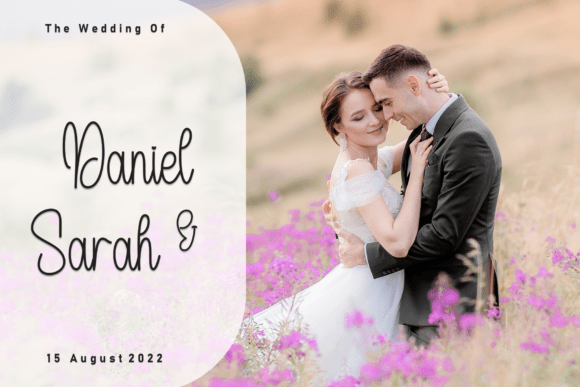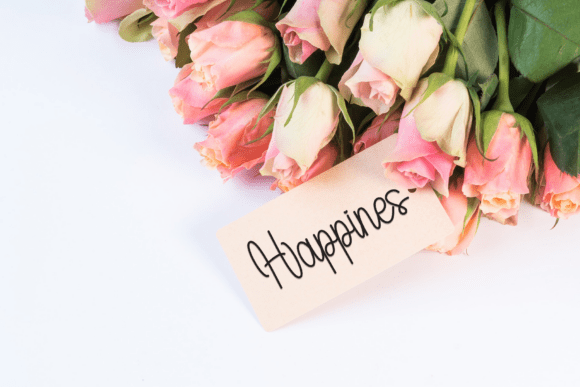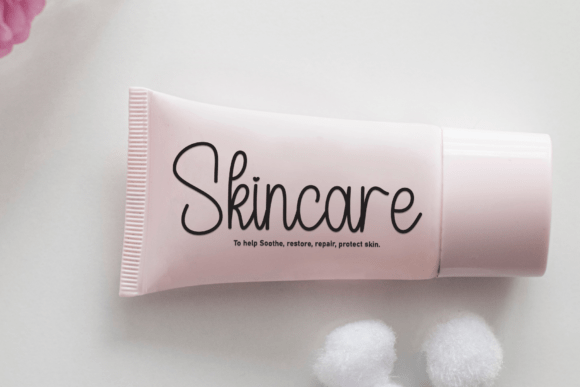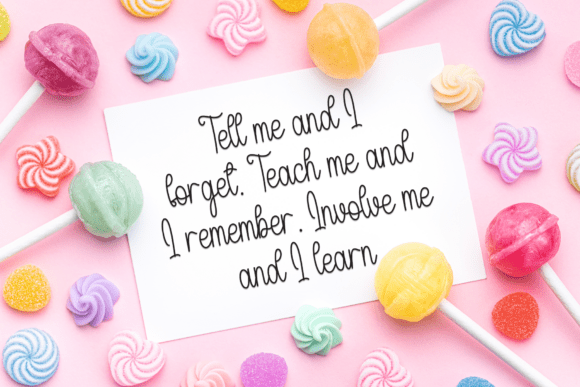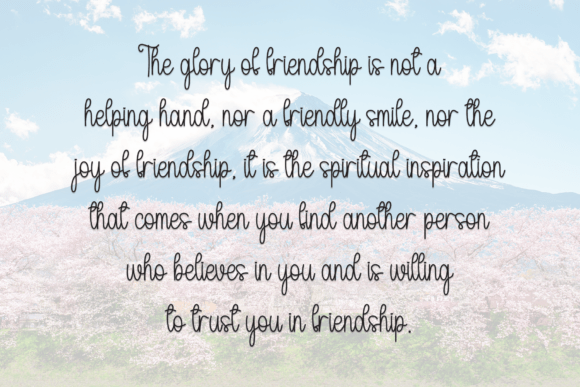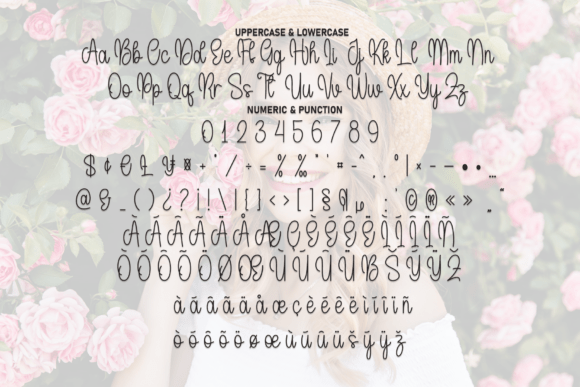
Unlock Your Creative Potential with Beautiful Font
Have you ever been working on a design project, pouring your heart and soul into it, only to feel like something’s missing? That’s where Beautiful Font comes in – a handcrafted display font infused with vibrant energy and gentle warmth that will elevate your designs to new heights. This charming typeface is designed to command attention and add a touch of joy to any project.
Whether you’re creating wedding invitations, greeting cards, or any other design that requires a dash of celebration, Beautiful Font is the perfect tool for the job. Its irresistible allure and cheerful aura will transform ordinary designs into delightful masterpieces that shine with joy and warmth. With Beautiful Font, you’ll have the flexibility to express your creativity in a whole new way, making it an essential addition to any designer’s toolkit.
Key Features of Beautiful Font
- Unique Characteristics: The font features a unique blend of elegance and sophistication, with subtle curves and flourishes that set it apart from other fonts.
- Weight and Style: The font is available in 5 weights (Light, Regular, Medium, Bold, and Black) and 3 styles (Upright, Italic, and Small Caps), providing a wide range of options for designers and typographers.
Beautiful Font Review
Overall, I was quite impressed with Beautiful Font’s aesthetic and versatility. ✨ The font’s elegant and sophisticated design makes it perfect for high-end branding, luxury goods, or any project that demands refinement. It’s also quite legible, making it a great choice for body text.
- ✨ Elegant and sophisticated design
- ✨ Highly legible
- ✨ Suitable for a wide range of applications, from branding to body text
However, I do have a few concerns with Beautiful Font. ⚠️ It’s not ideal for use in digital interfaces or interactive elements, as it can be quite dense and overwhelming in certain sizes and contexts. Additionally, the font’s complexity may make it difficult to pair with other fonts or typography elements.
While Beautiful Font is a stunning addition to any design project, its limitations should be carefully considered before implementation. With the right application and context, it can truly shine, but it may not be the best choice for every project. I would recommend it for high-end, print-based projects or situations where a touch of elegance is desired.
Getting the Most Out of Beautiful Font
For optimal results, use Beautiful Font in conjunction with high-quality images and a clear design concept.
Experiment with different font sizes and colors to create visual interest and hierarchy in your design.
Beautiful Font is ideal for:
- Print and digital marketing materials